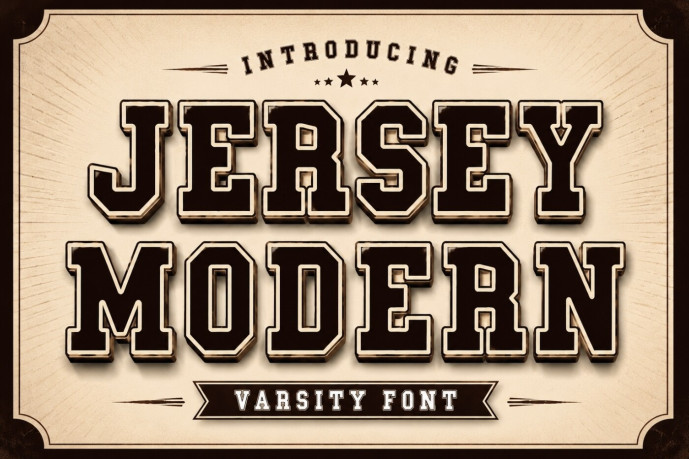
Jersey Modern Font
Jersey Modern is a bold varsity display font inspired by classic collegiate lettering, championship jerseys, and vintage American sports typography. Featuring strong block letterforms with clean geometric lines and timeless athletic styling, this font delivers a confident and energetic look that is perfect for creating impactful designs.
Designed for sports enthusiasts, branding professionals, and creative designers, Jersey Modern is ideal for team logos, school branding, university merchandise, sports uniforms, event posters, apparel, packaging, and bold promotional graphics. Its powerful letterforms maintain excellent readability while adding an authentic varsity personality that stands out across both print and digital media.
Whether you’re designing football jerseys, basketball graphics, baseball uniforms, esports branding, gym apparel, YouTube thumbnails, social media content, or Cricut and Silhouette projects, Jersey Modern provides the versatility needed for professional-quality results. The classic collegiate style also makes it perfect for graduation designs, school spirit merchandise, championship banners, and retro-inspired branding.